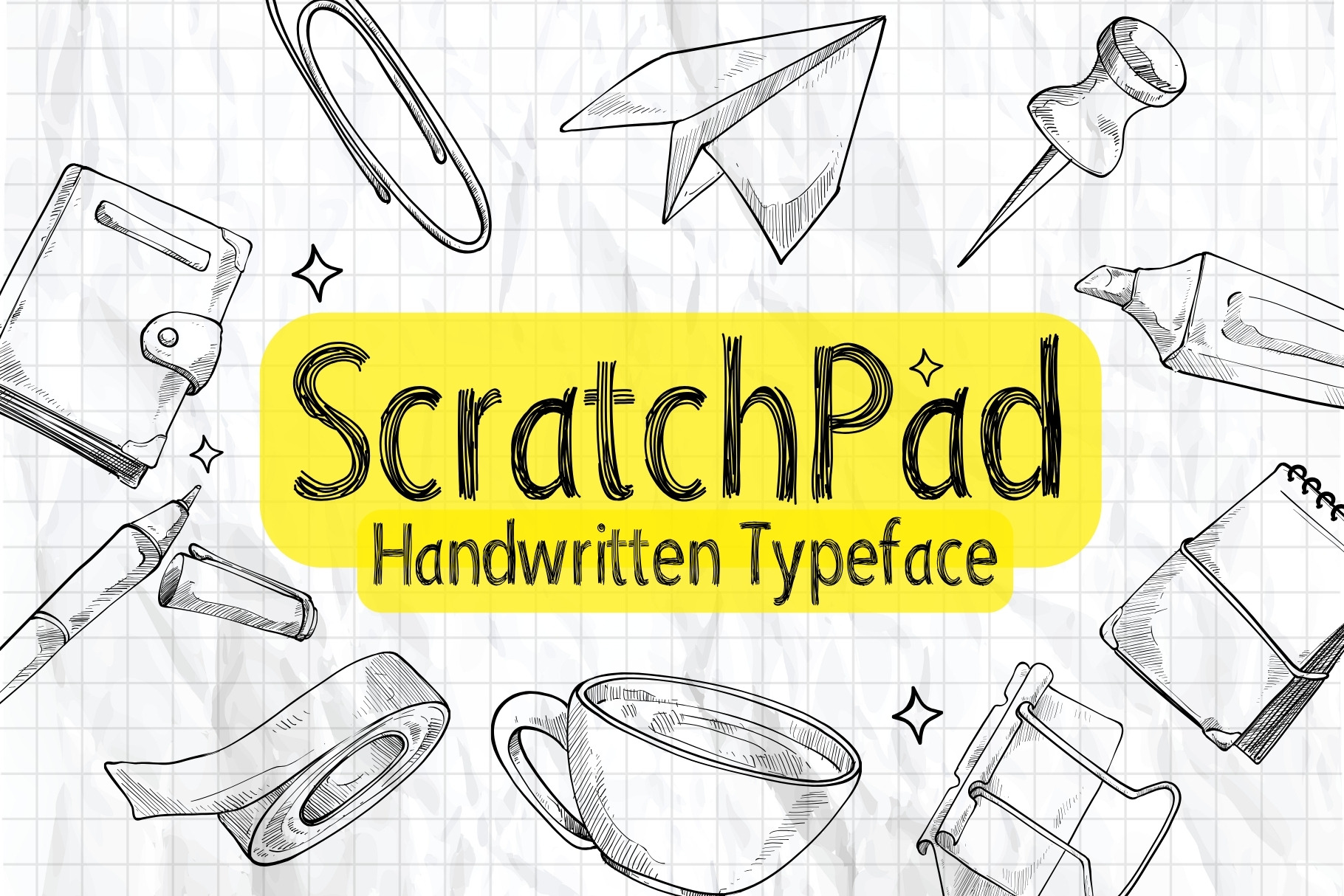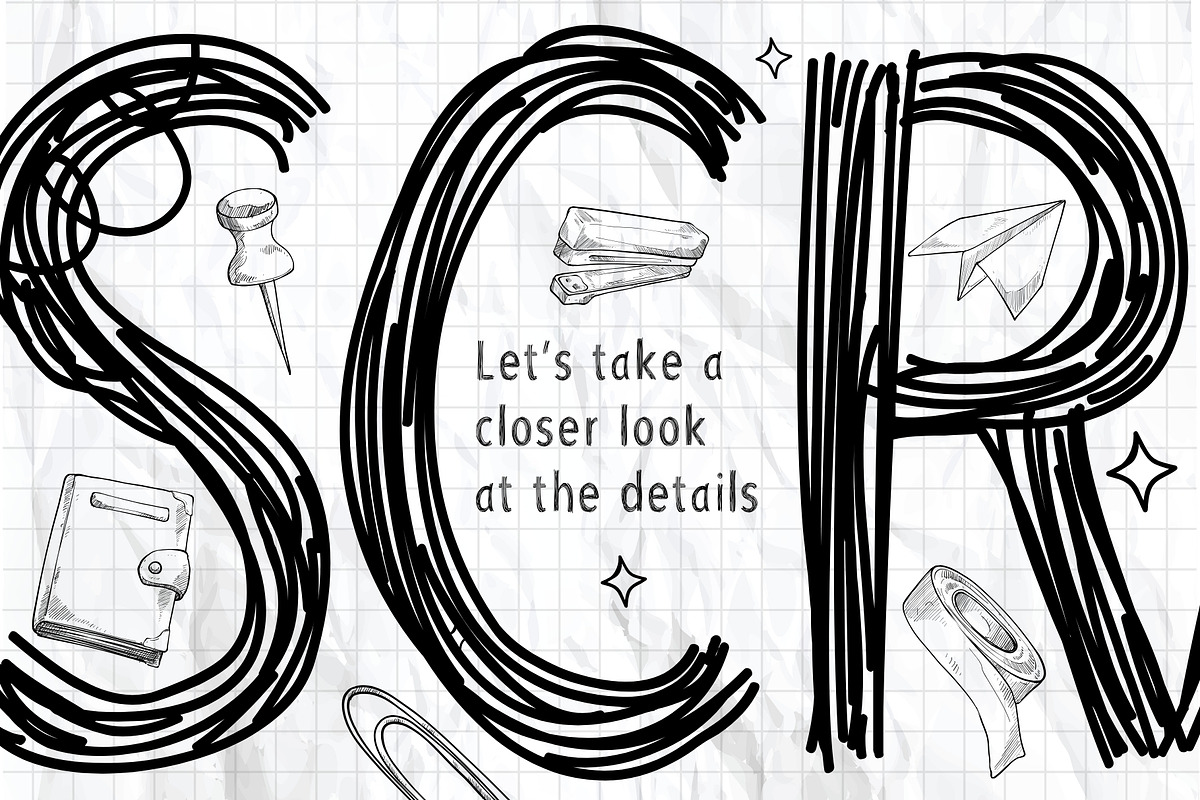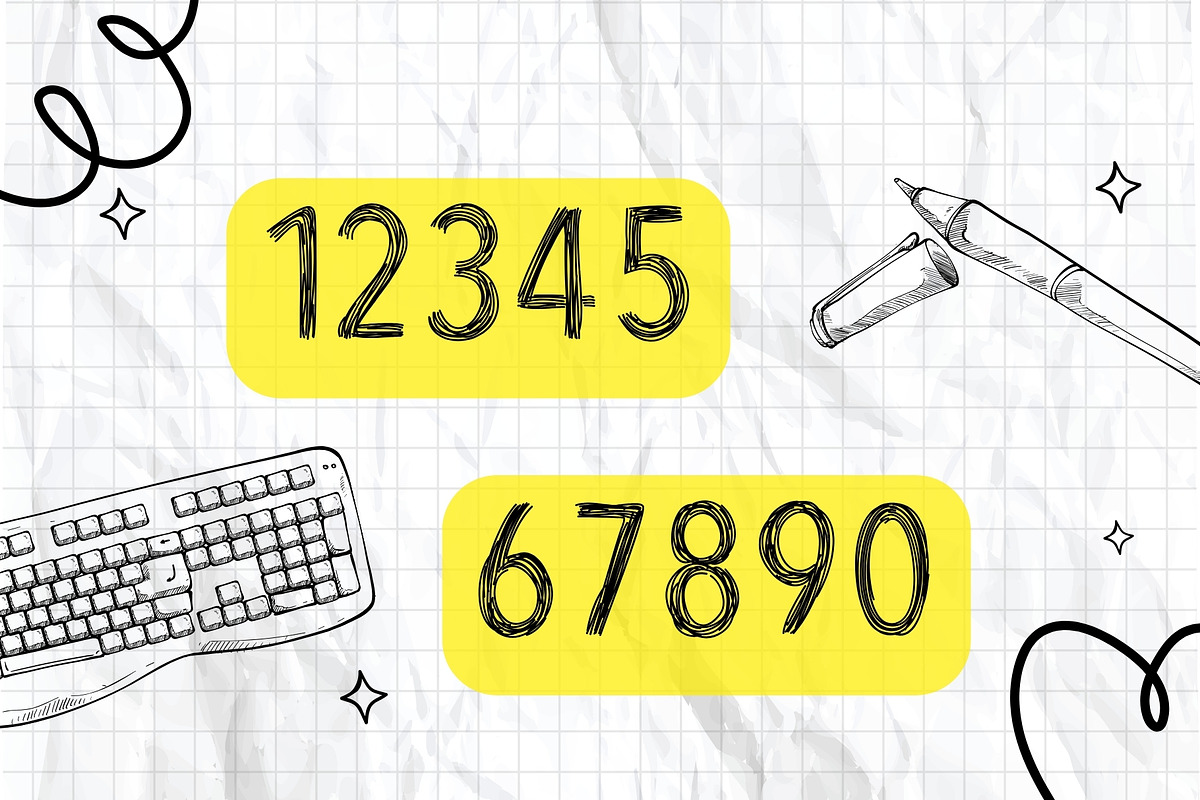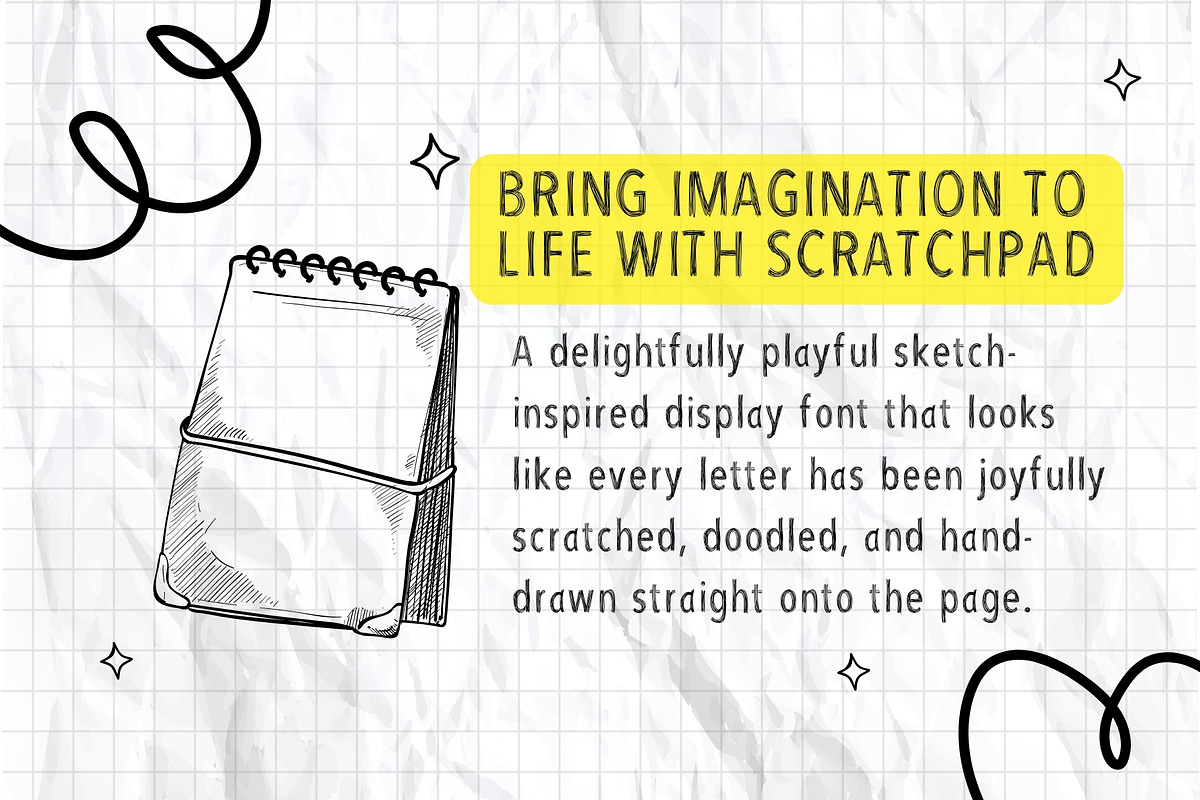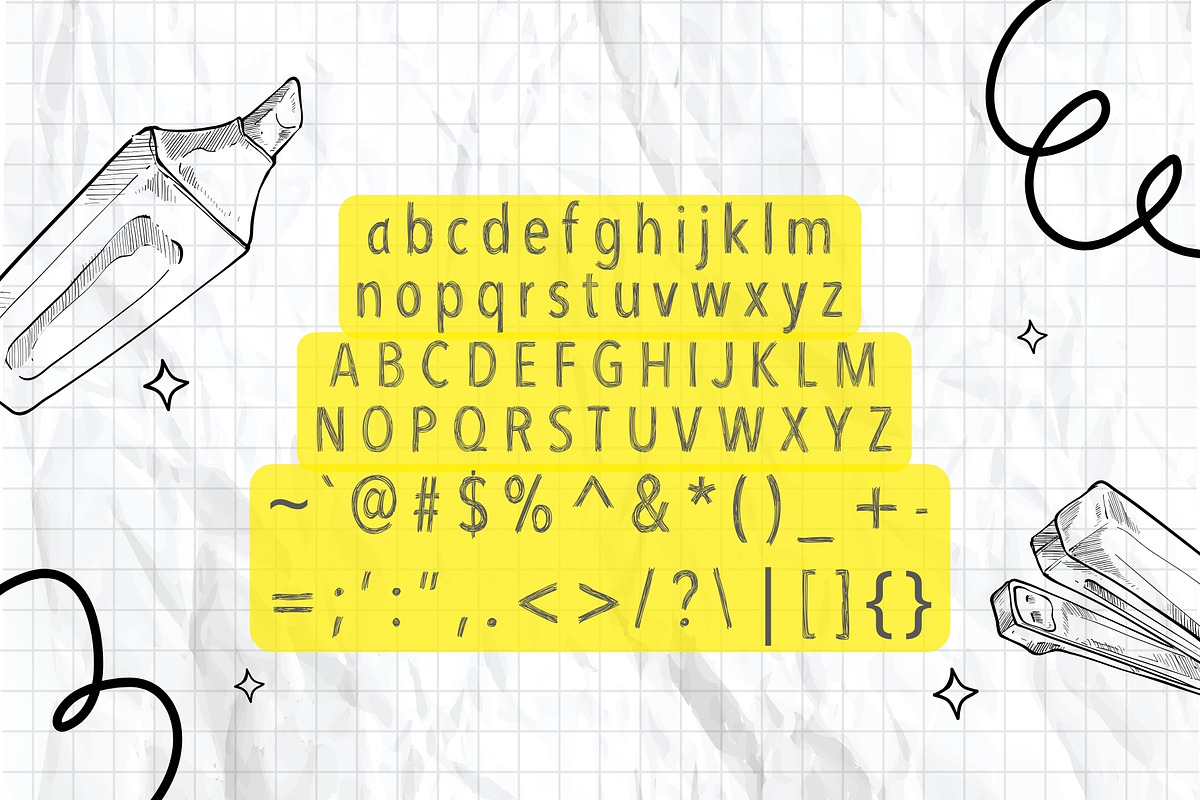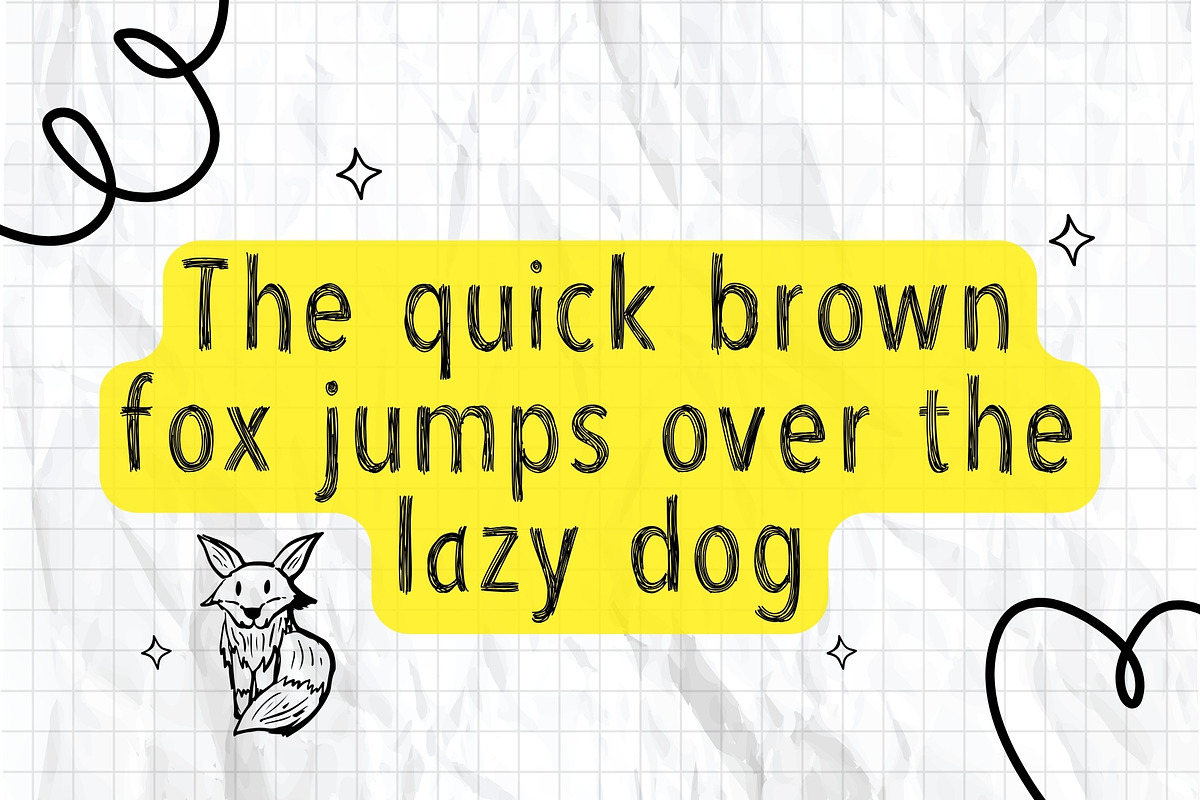
Scratchpad - Messy Handmade Font
Bring imagination to life with Scratchpad, a delightfully playful sketch-inspired display font that looks like every letter has been joyfully scratched, doodled, and hand-drawn straight onto the page. Featuring energetic multi-line strokes and a charming handmade personality, Scratchpad captures the creativity of childhood while remaining clean, legible, and full of character.
Designed for toddlers, classrooms, teachers, and creative makers, Scratchpad instantly transforms ordinary words into fun, expressive artwork. Its whimsical scratchy letterforms feel spontaneous and imaginative, making it the perfect choice for educational materials, children's books, classroom décor, activity sheets, birthday invitations, toy packaging, nursery prints, Cricut projects, stickers, sublimation designs, apparel, logos, and playful branding.
Every character has been carefully crafted to mimic the natural movement of a pencil repeatedly sketching each letter, creating an authentic hand-drawn aesthetic without sacrificing readability. Whether you're designing for preschoolers, elementary classrooms, family events, or cheerful small businesses, Scratchpad adds warmth, creativity, and personality to every project.
The font includes uppercase and lowercase letters, numbers, punctuation, multilingual support, and balanced spacing, making it as practical as it is fun. Its unique sketchy construction pairs beautifully with colorful illustrations, paper crafts, doodles, and educational graphics, helping your designs feel approachable, memorable, and full of life.
From classroom bulletin boards and learning resources to kids' apparel, party decorations, YouTube thumbnails, social media graphics, and packaging, Scratchpad is the perfect companion for projects that celebrate creativity, curiosity, and play.
If you're looking for a font that feels handcrafted, energetic, and endlessly fun, Scratchpad is ready to fill every design with smiles and imagination.